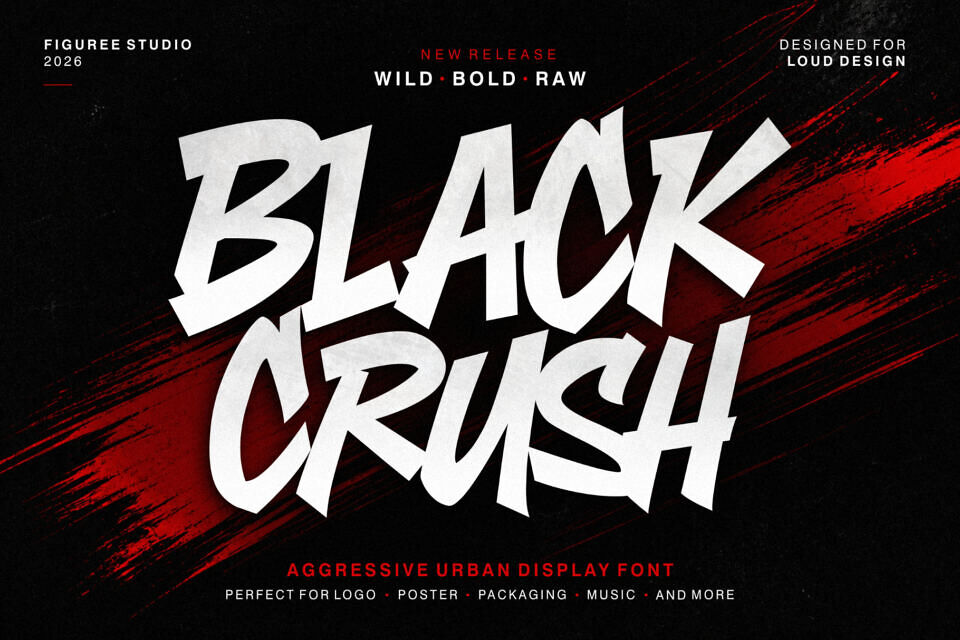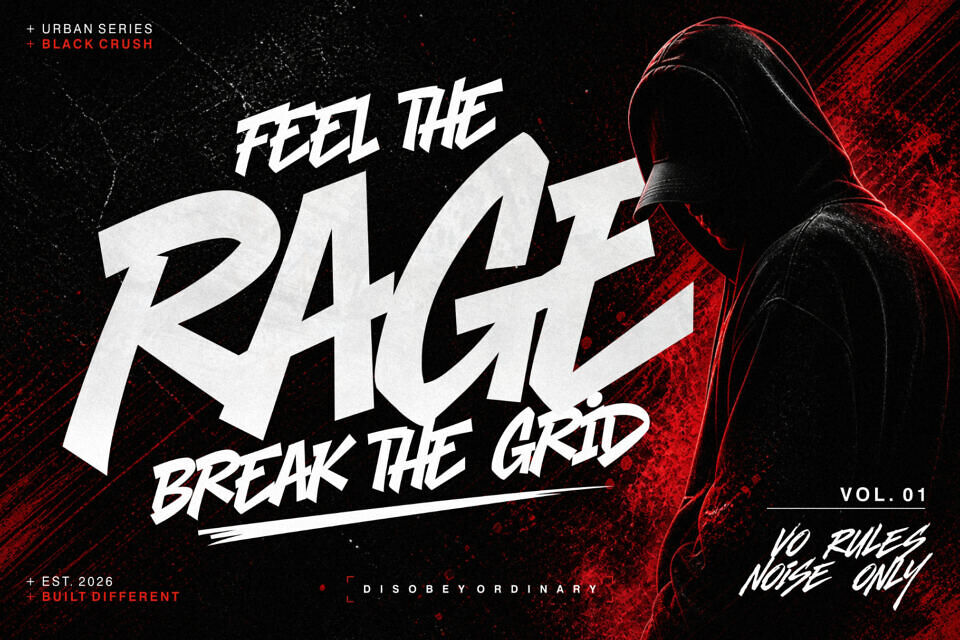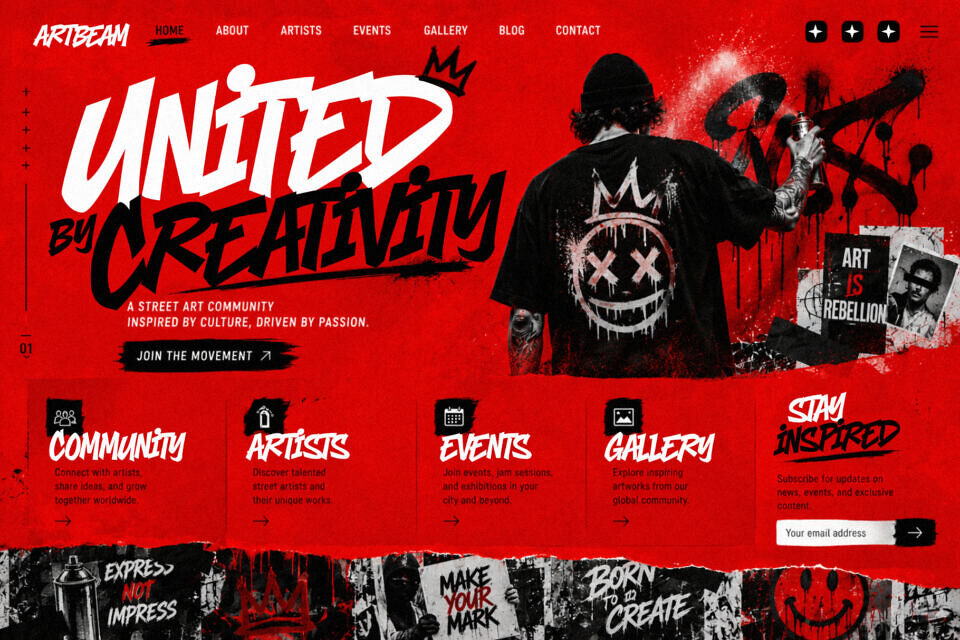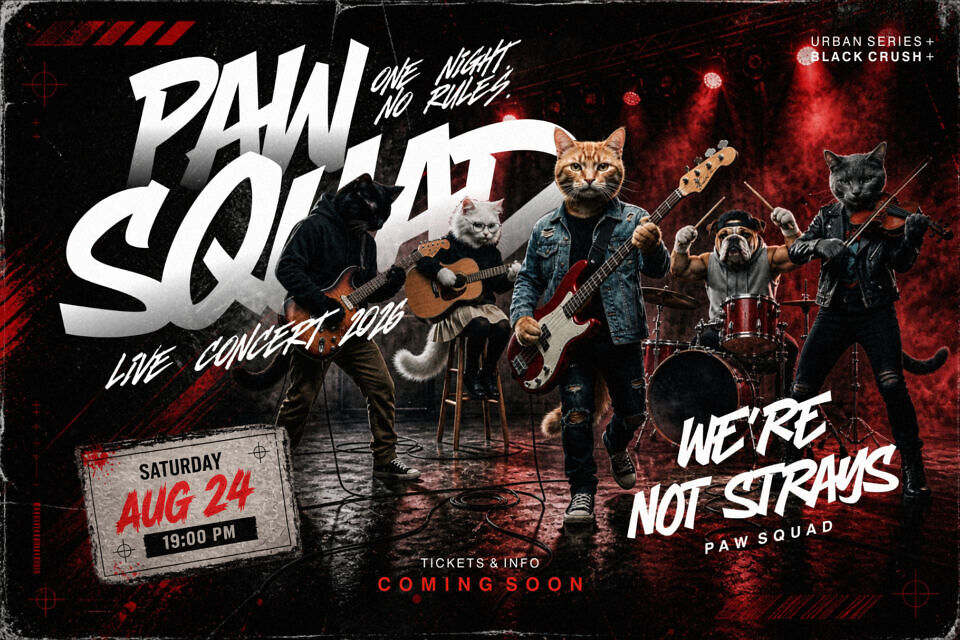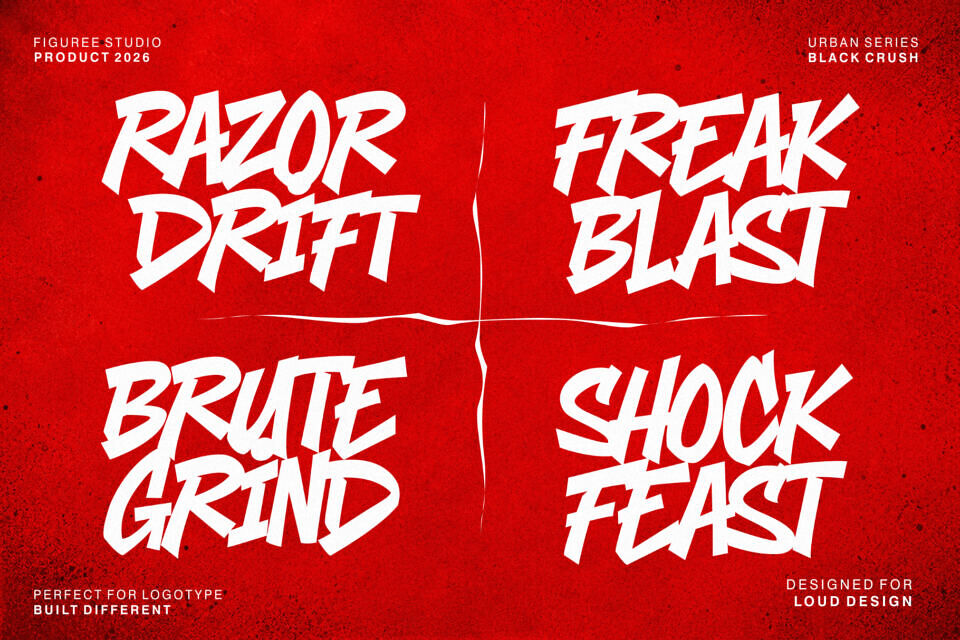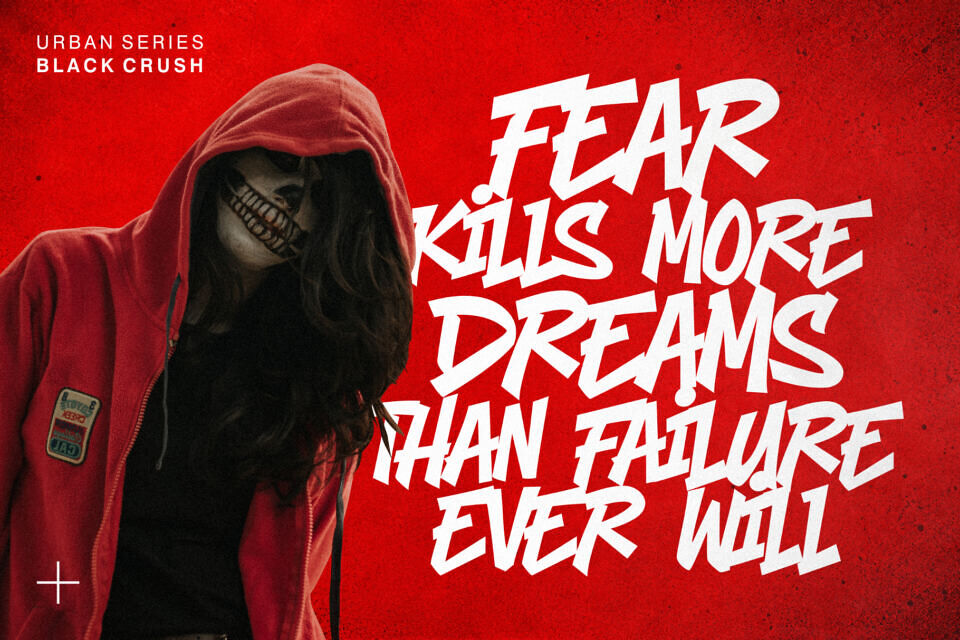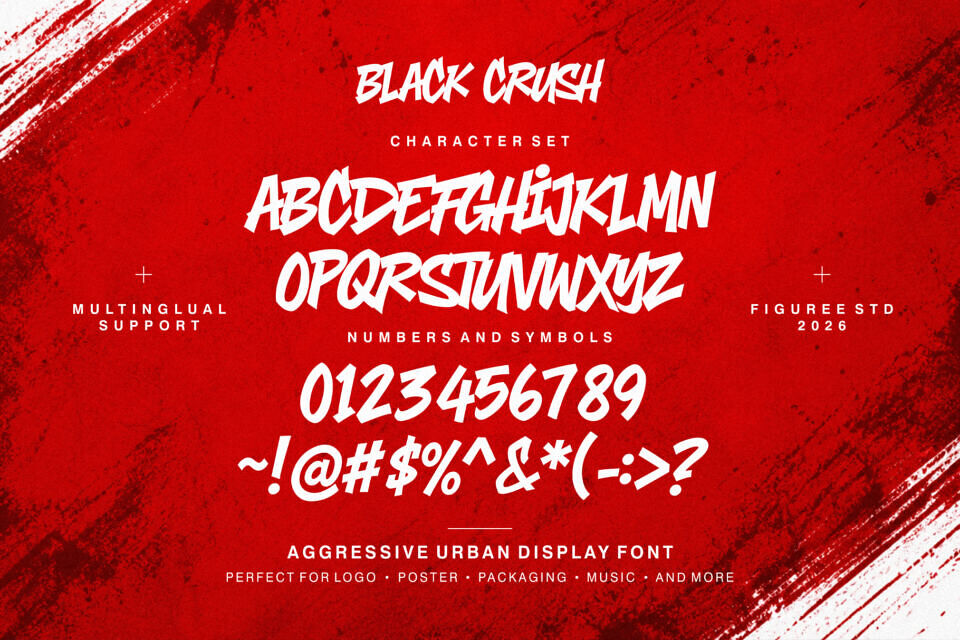
Black Crush Font
Introducing Black Crush, a bold urban and energetic display typeface created for projects that demand strong visual impact. Built with sharp character shapes, dynamic proportions, and a raw urban attitude, this font delivers high visibility across digital and print layouts.
Black Crush is designed to work perfectly for posters, video thumbnails, music artwork, esports graphics, event promotions, gaming titles, banners, social media content, and large display typography. Its aggressive style instantly creates tension, movement, and intensity inside a composition without losing readability.